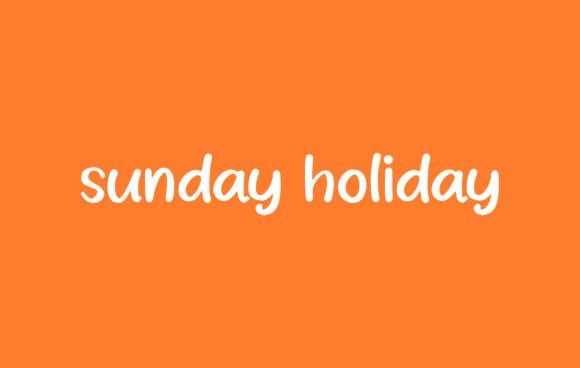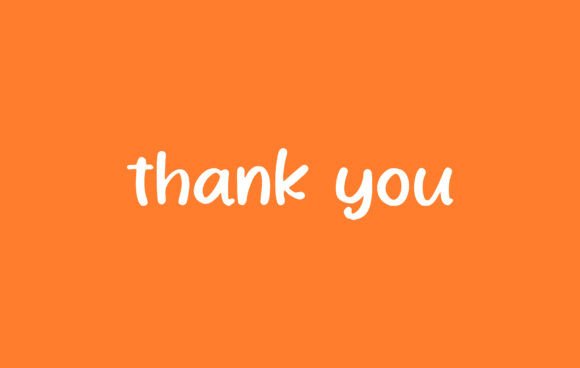
The Perfect Brushstroke: Unlocking the Power of Braxton Font
There’s something magical about capturing a moment in time with a single brushstroke – a fleeting glance, a whispered promise, or a joyful laugh. As creatives, we’re constantly seeking that perfect blend of emotion and expression, and for many of us, it starts with the right font. Enter the Braxton Font, a genuine handwritten font that whispers romance and elegance with every letter.
Expertly crafted to elevate your creative vision, the Braxton Font is more than just a pretty face – it’s a powerful tool for designers looking to make a lasting impression. With its legibility and versatility, this font is perfect for a wide range of projects, from magazine headlines to social media graphics, branding, and even wedding invitations. Whether you’re a seasoned pro or just starting out, the Braxton Font is sure to become your go-to companion for bringing your most beautiful ideas to life.
Braxton Font Key Features
- Unique Characteristic: The font features a unique blend of modern and vintage elements, making it ideal for designs that require a touch of sophistication and elegance.
- Font Style: The font comes in both regular and italic styles, providing flexibility for designers to create a range of visual effects.
Review of Braxton Font
Overall, I think the Braxton Font is a decent addition to any designer’s toolkit. Here are a few things that work well: ✨
- Legibility: The font is easy to read, even at smaller sizes.
- Neutral aesthetic: Braxton has a clean, unassuming style that makes it versatile for a wide range of applications.
- Font weights: The font family offers a variety of weights, from light to bold, which can be useful for creating visual hierarchy.
However, I’ve also noticed a few limitations: ⚠️
- Lack of personality: While Braxton’s neutral style is a strength in some ways, it can also make the font feel a bit bland and unremarkable.
- Not ideal for display work: Braxton is better suited for body text or titles where a clean, simple font is needed, but it may not be the best choice for headings or other display typography.
Overall, I’d say Braxton is a solid, if unremarkable, choice for designers who need a dependable font for everyday use. It may not be the most exciting option, but it gets the job done.
Tip: Use Braxton Font for headings and titles to add a touch of elegance to your design.
Tip: Use Braxton Font for typography-heavy designs, such as posters or business cards.
Tip: Use Braxton Font for headings and titles in presentations and documents.
Braxton Font is suitable for:
- Business cards and stationery
- Posters and flyers
- Presentations and documents
Alternatives to Braxton Font for Designers
Bebas Neue is a modern sans-serif font with a strong, clean design. It’s ideal for use in headings and titles where a bold statement is needed. Bebas Neue is a great alternative to Braxton Font for designers looking for a more contemporary feel.
Comparison: Bebas Neue has a more modern and geometric feel compared to Braxton Font’s more classic and elegant design. While Braxton Font has a softer, more rounded appearance, Bebas Neue is more angular and edgy.
Montserrat is a versatile sans-serif font that works well in a variety of contexts, from body text to headings. It’s a great choice for designers looking for a clean and modern font that is easy to read. Montserrat is similar to Braxton Font in its simplicity and elegance, but with a more urban and gritty feel.
Comparison: Montserrat has a more urban and industrial feel compared to Braxton Font’s classic and elegant design. While Braxton Font has a softer, more rounded appearance, Montserrat is more angular and edgy.